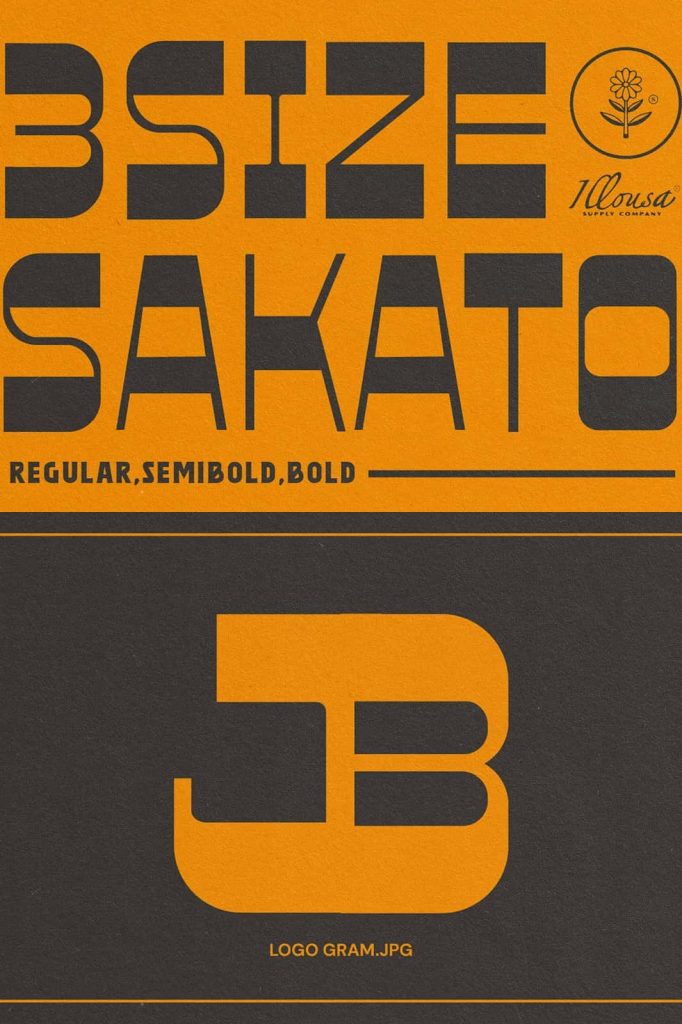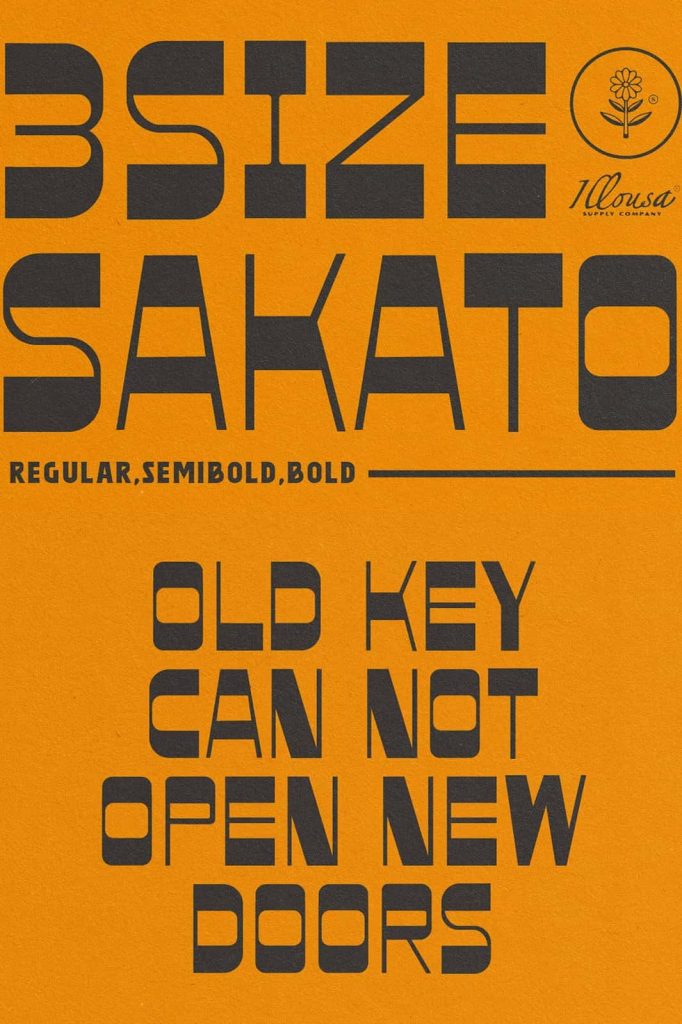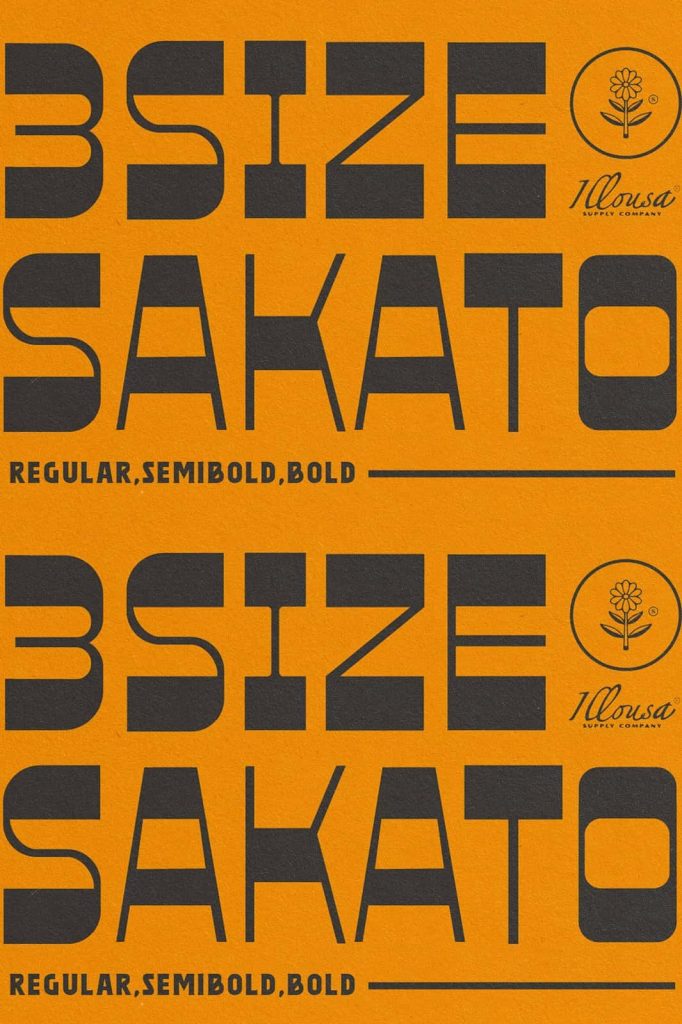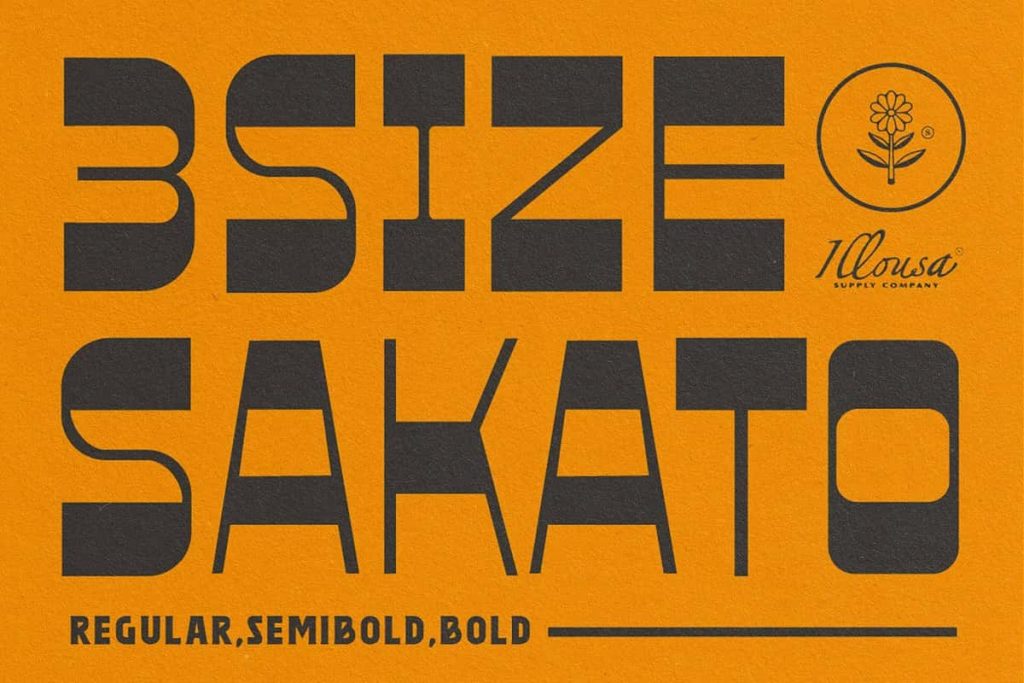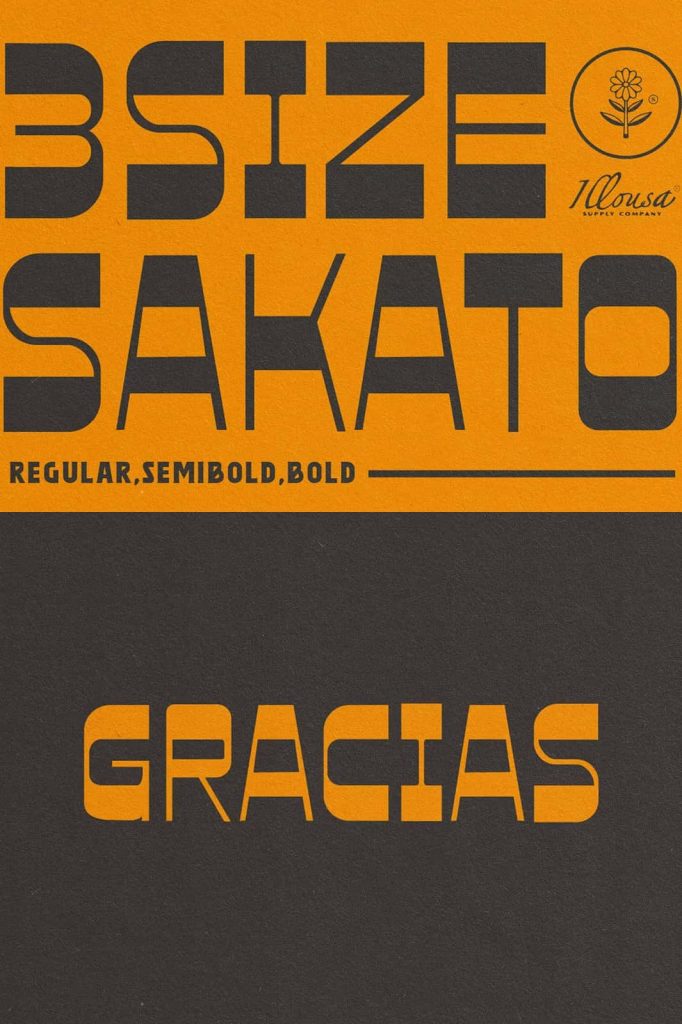
Sakato is a vintage print inspired font from western culture , and is perfect for a variety of uses. Recommend for branding project and Poster Font. Minimalism style.